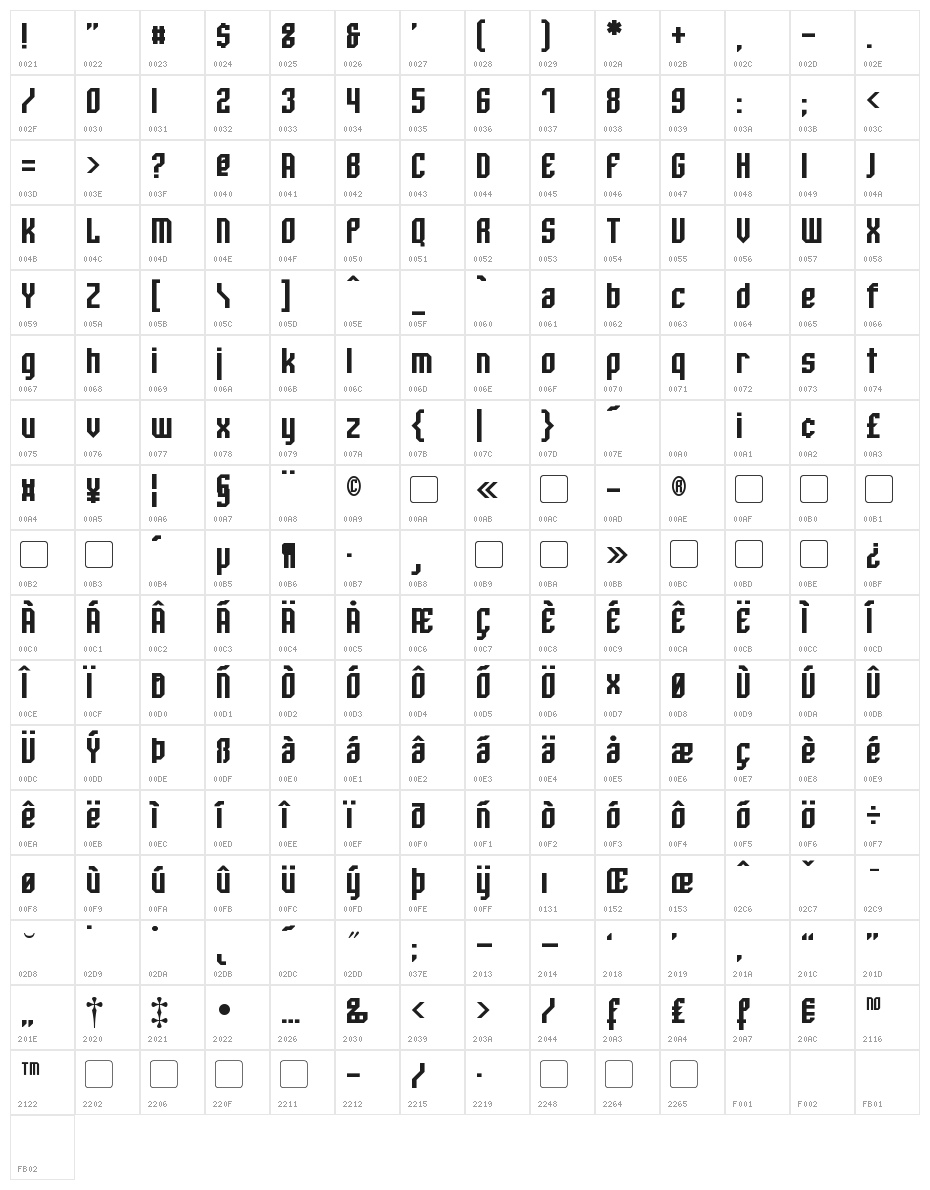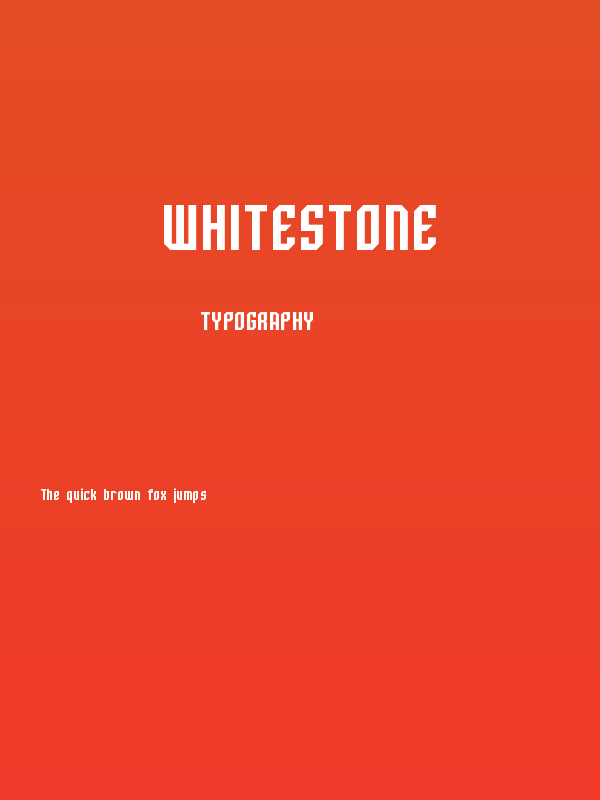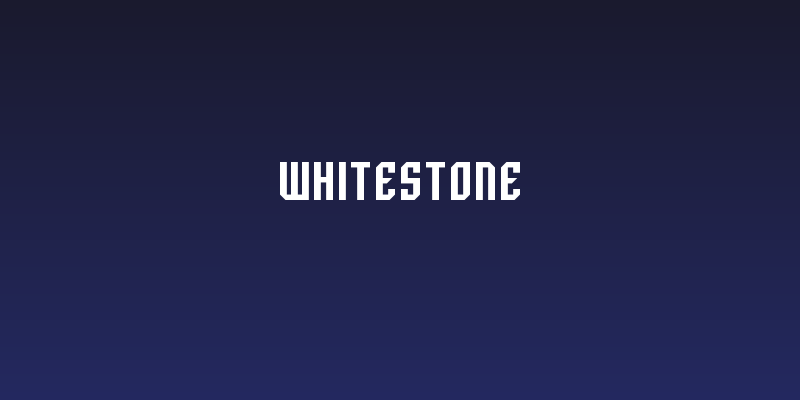
Whitestone Font
Whitestone Description
This font features a bold, geometric design with a strong presence. The characters are constructed with sharp angles and straight lines, giving it a modern and industrial feel. The uppercase and lowercase letters maintain a consistent style, with a uniform height that enhances readability. The numerals and special characters follow the same angular design, ensuring a cohesive look across all text. This font is ideal for creating impactful headlines or logos that require a contemporary and assertive appearance.